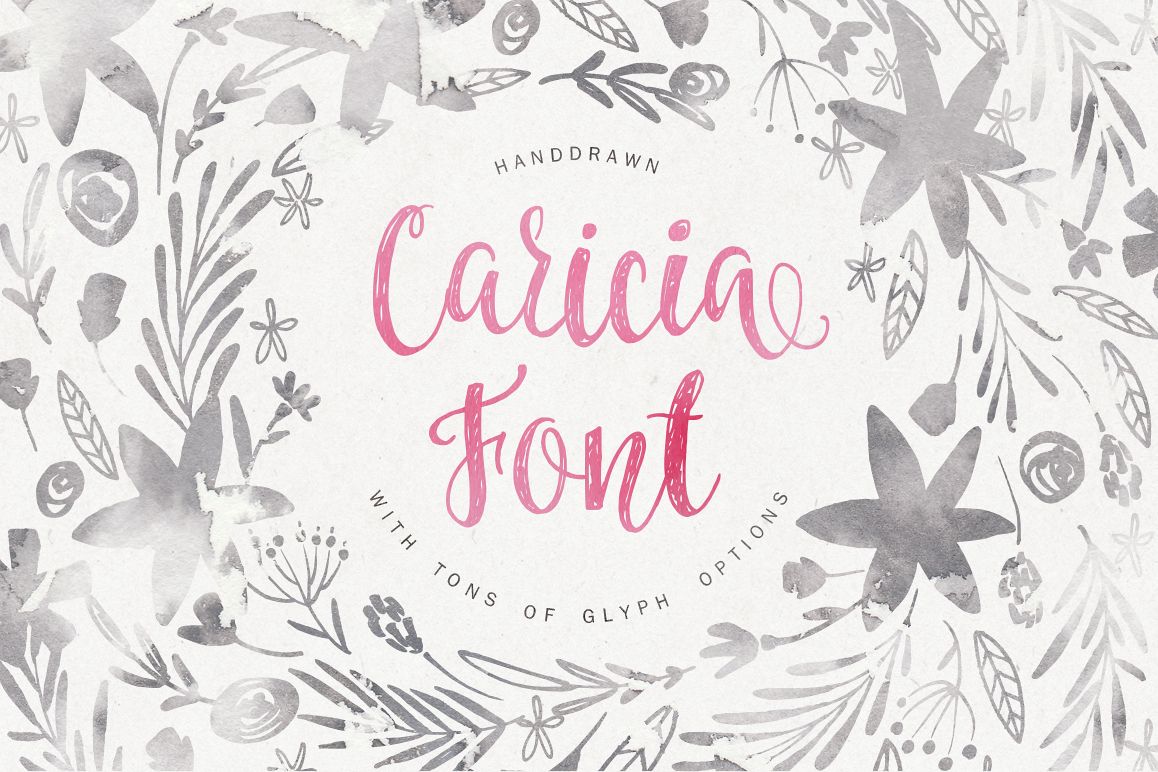
Caricia - handdrawn font
Caricia-Regular
Caricia is a gentle, very feminine font that has all you need to create stunning logo designs, packaging and invitations. Caricia comes with full set of lowercase alternates, as well as some initial & terminal letters (check previews to see all glyphs).Also Caricia is PUA encoded - that means that you will be able to access all characters from any application.